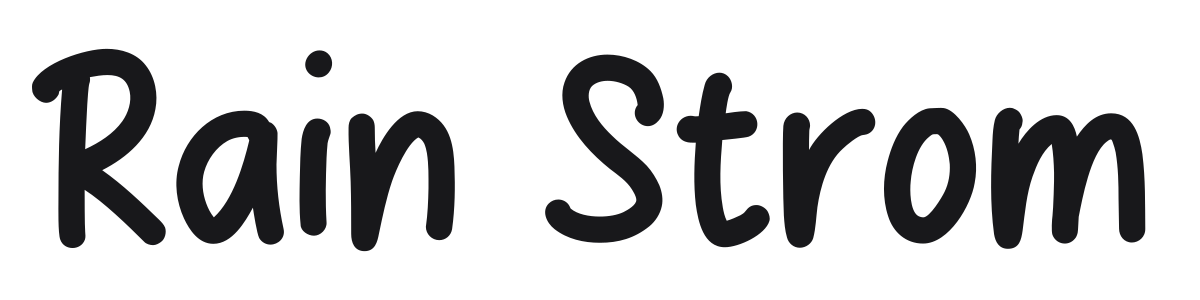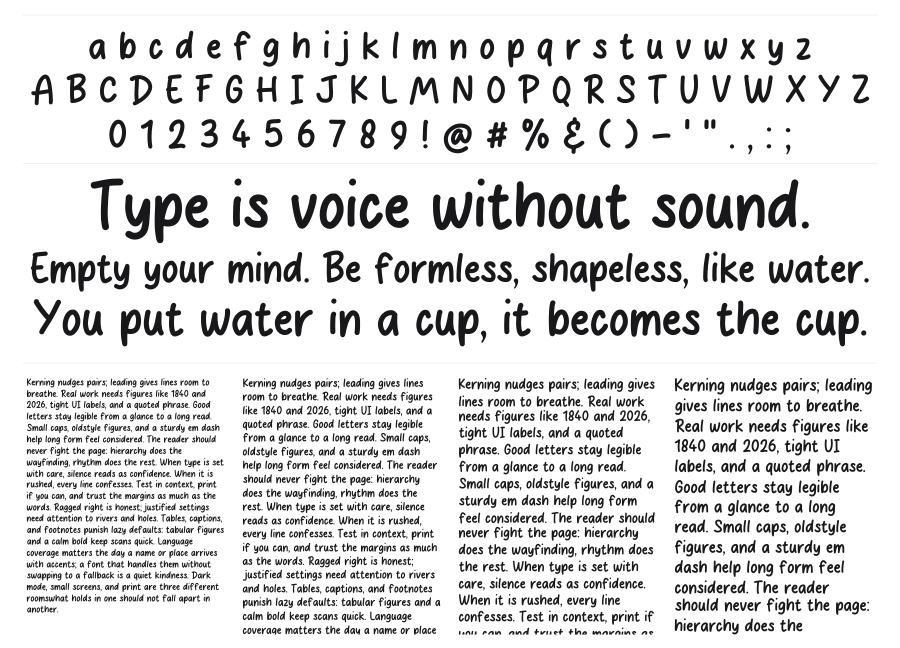
Rain Strom
Rain Strom is a bold, upright casual script that channels the energy of confident hand-lettering with a marker pen. The rounded, chunky strokes and relaxed rhythm make it feel immediately friendly without tipping into childish territory. It works well for logos, packaging, and any headline that needs warmth.